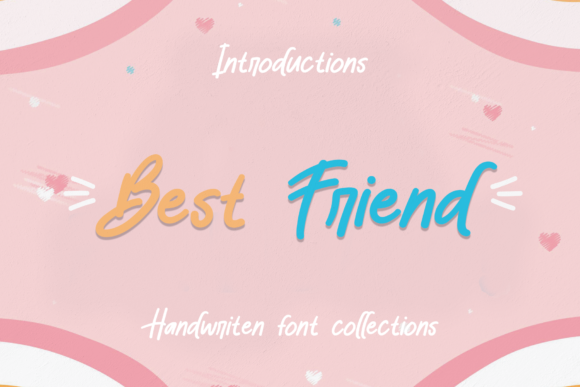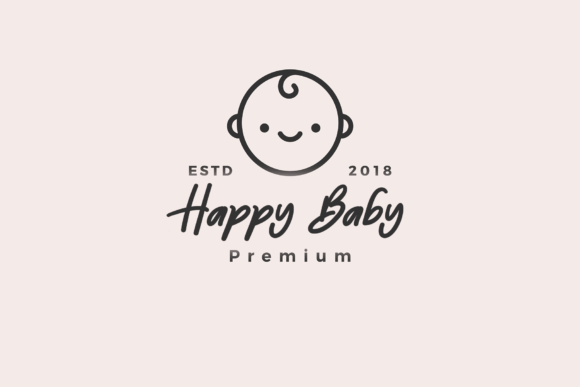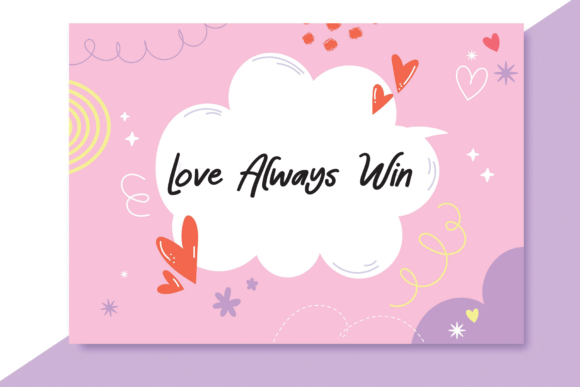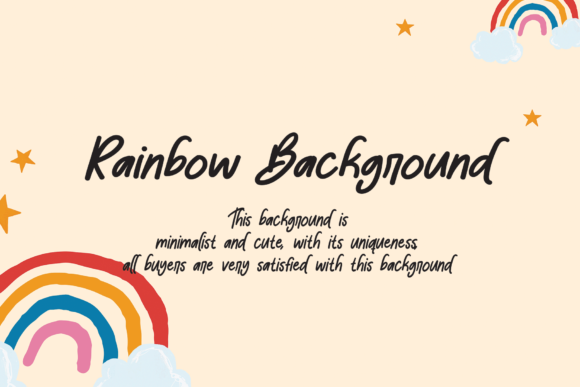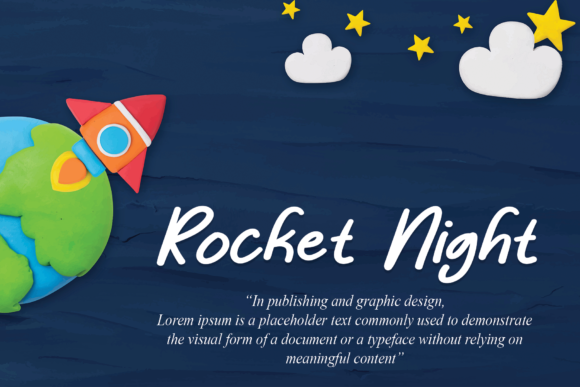
Best Friend Font
Best friend is a friendly and inviting handwritten font, perfect for projects that need innocent-looking typography.
It is suitable for wall displays, wedding invitations, social media post logos, advertisements, product packaging, product designs, labels, photography, watermarks, invitations, stationery, and more.